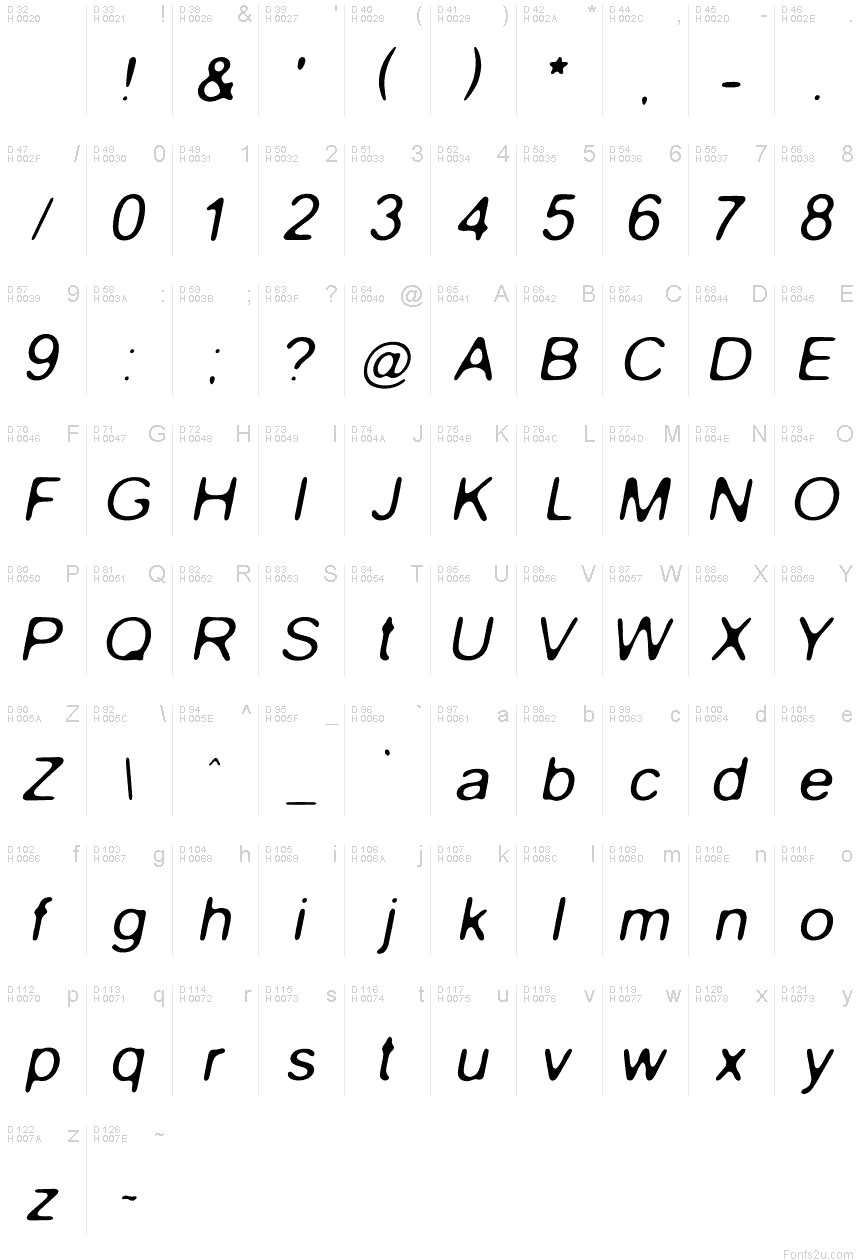
Gaussian Blur Italic is a free eroded font with a loose, marker-drawn look. Its tall, rounded letters shift between broad loops and pinched joins, with uneven widths that keep the line lively. The forms feel quick and unpolished.
Street-art graphics are the clearest match, especially music posters, skate merchandise, and youth event promotion that benefit from the lettering's improvised bends and distinctly raw local feel. For casual food packaging and independent clothing labels, it can turn a name into a hand-tagged brand mark rather than a polished corporate signature.
Gaussian Blur Italic